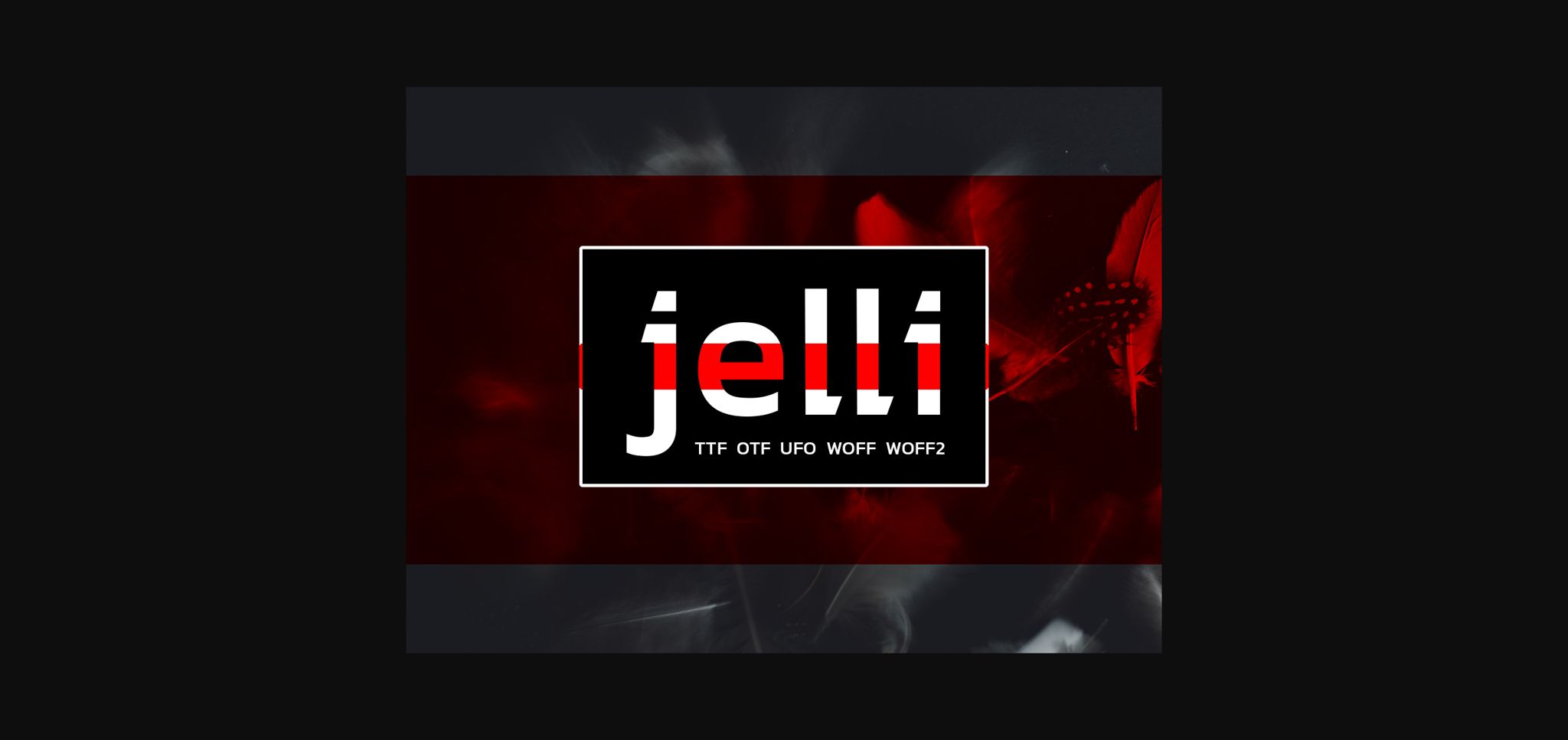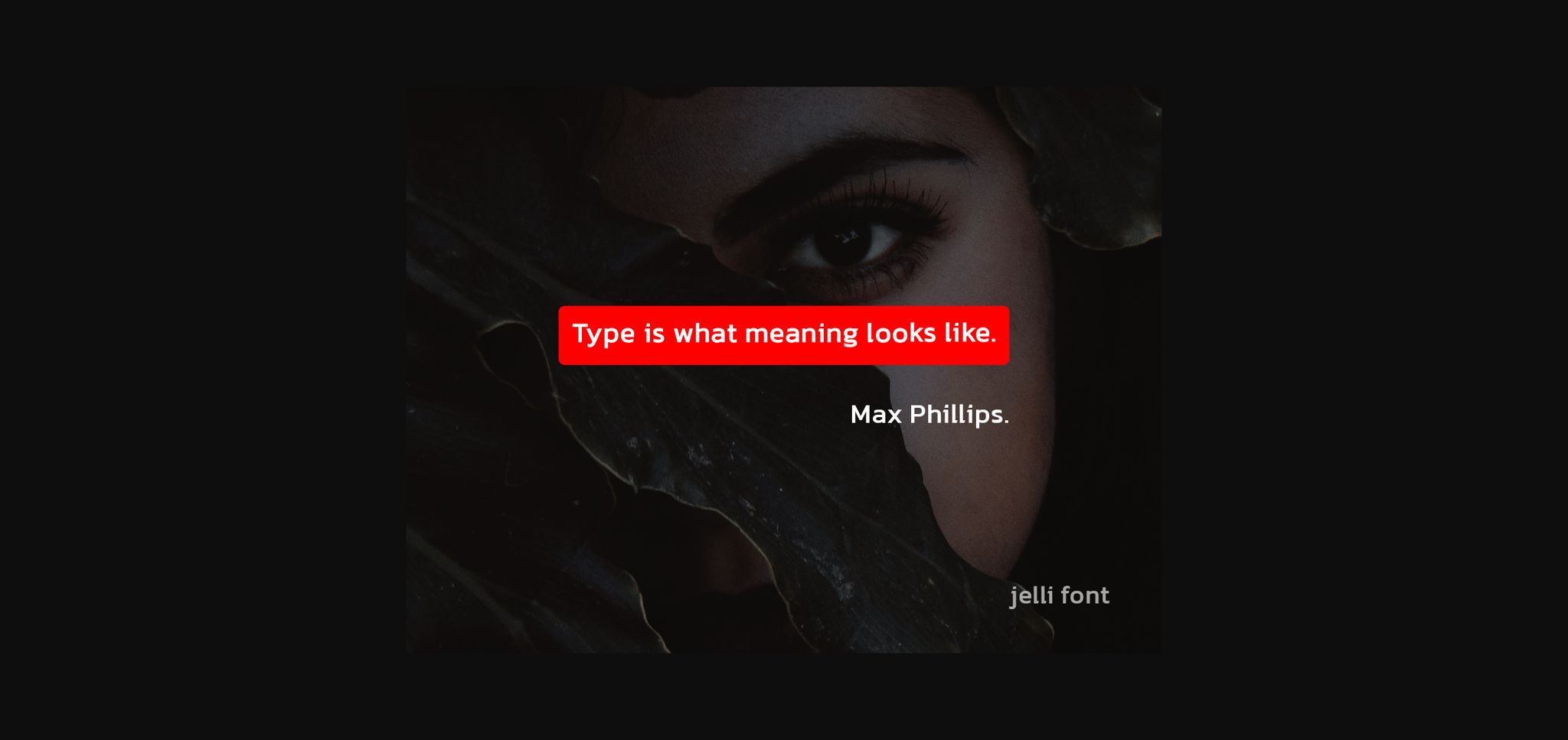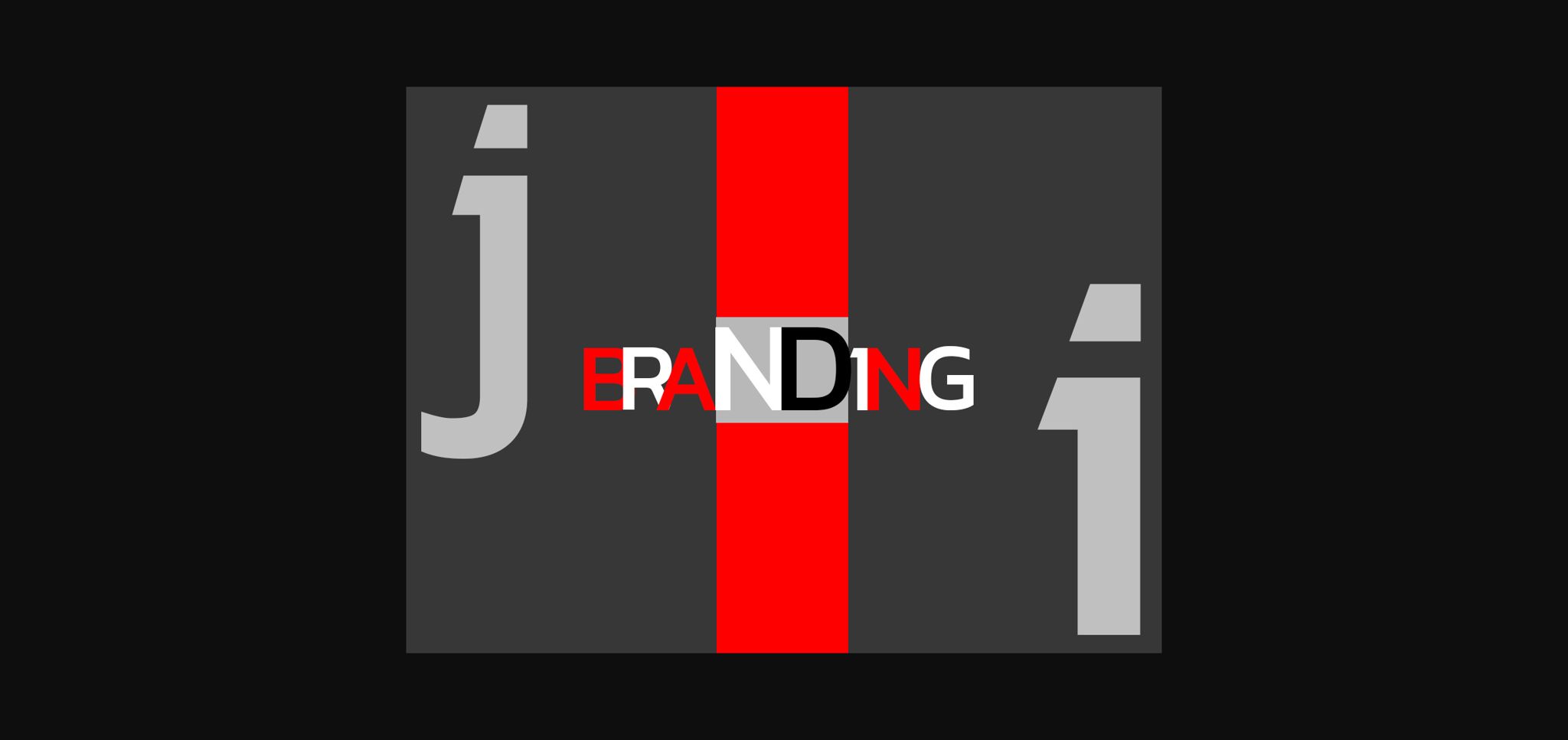
About Jelli Font
Jelli is an incredibly unique and minimalist sans serif font. Add this beautiful font to each of your creative ideas and notice how it makes them stand out!